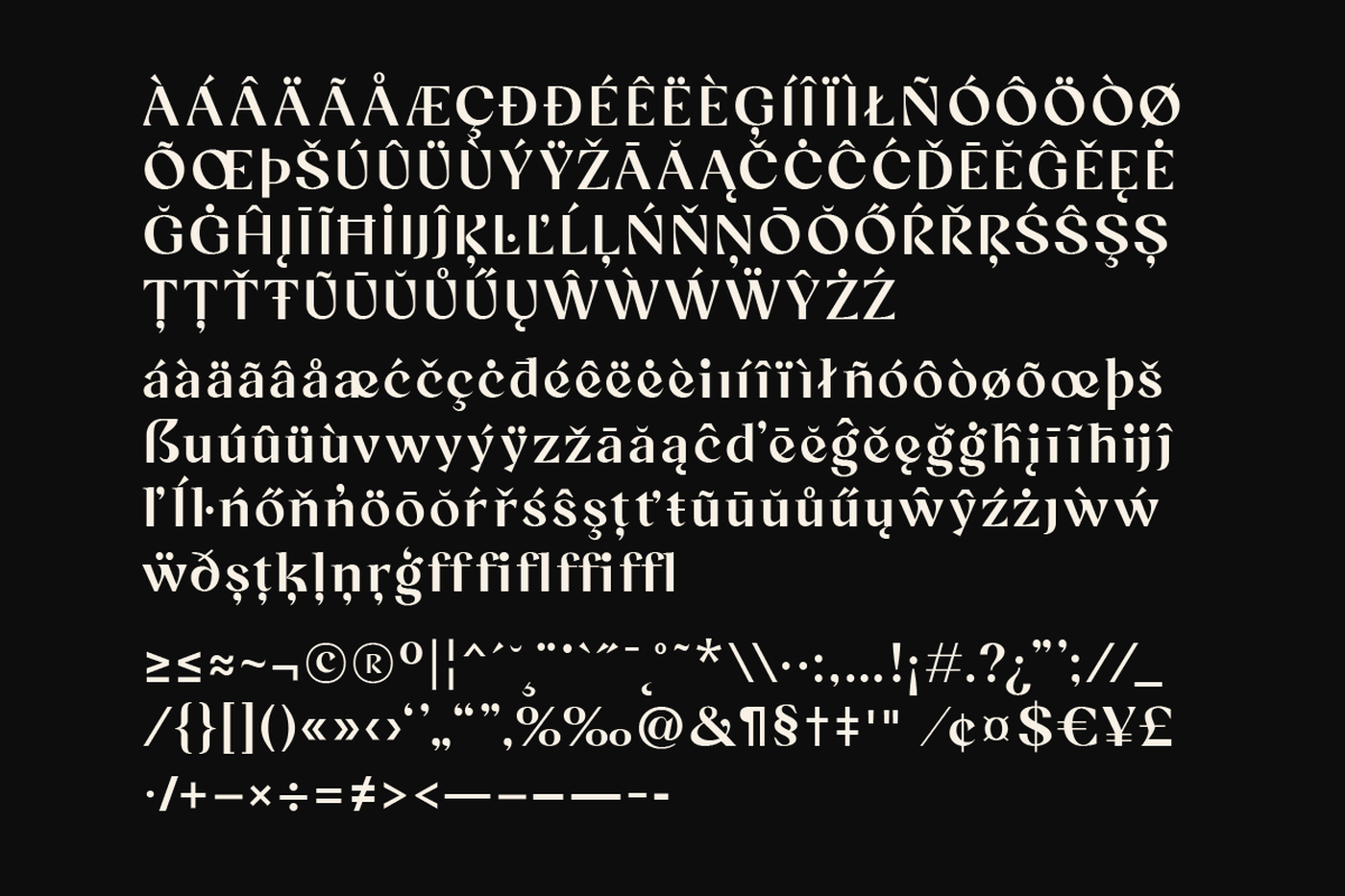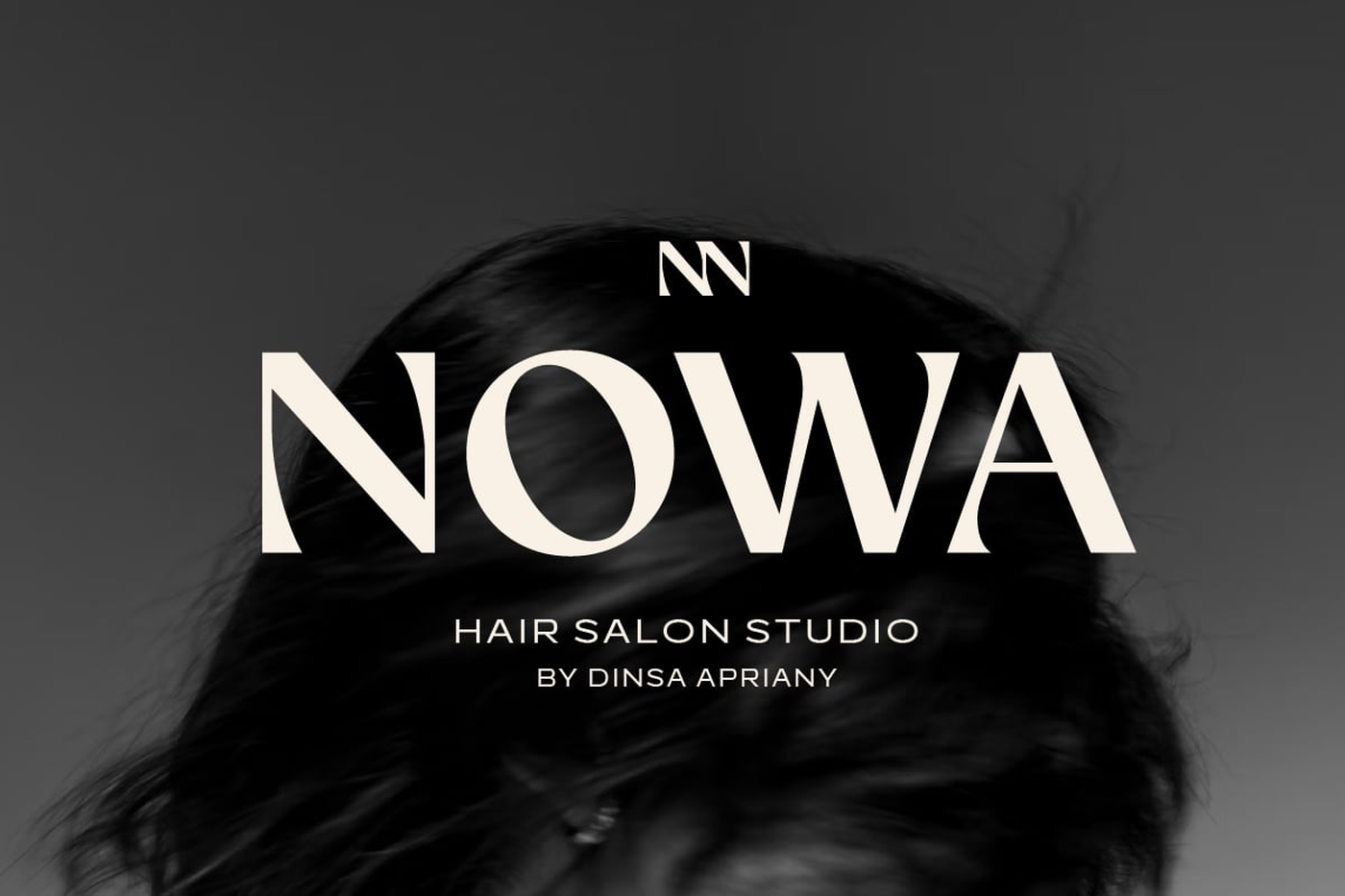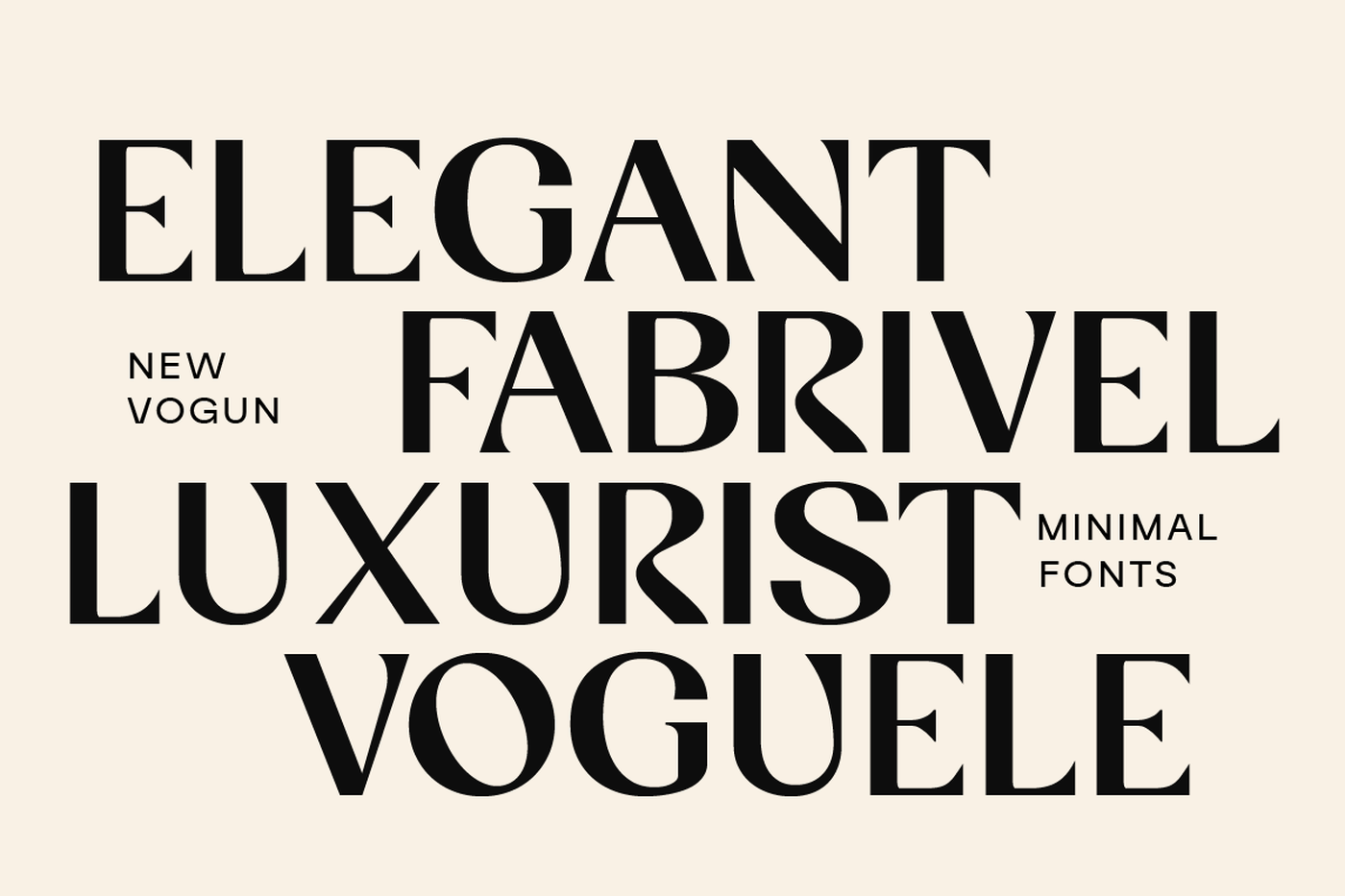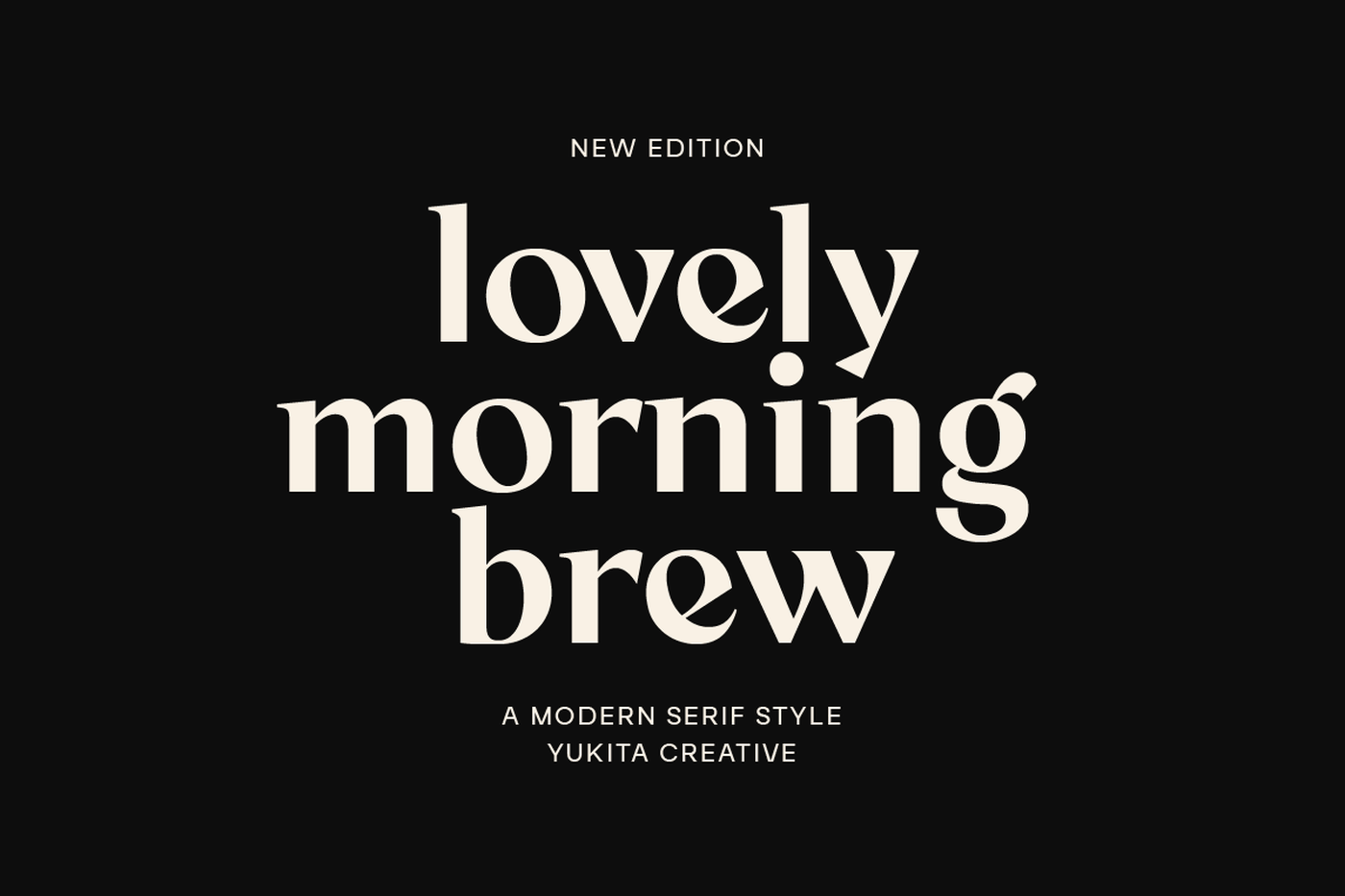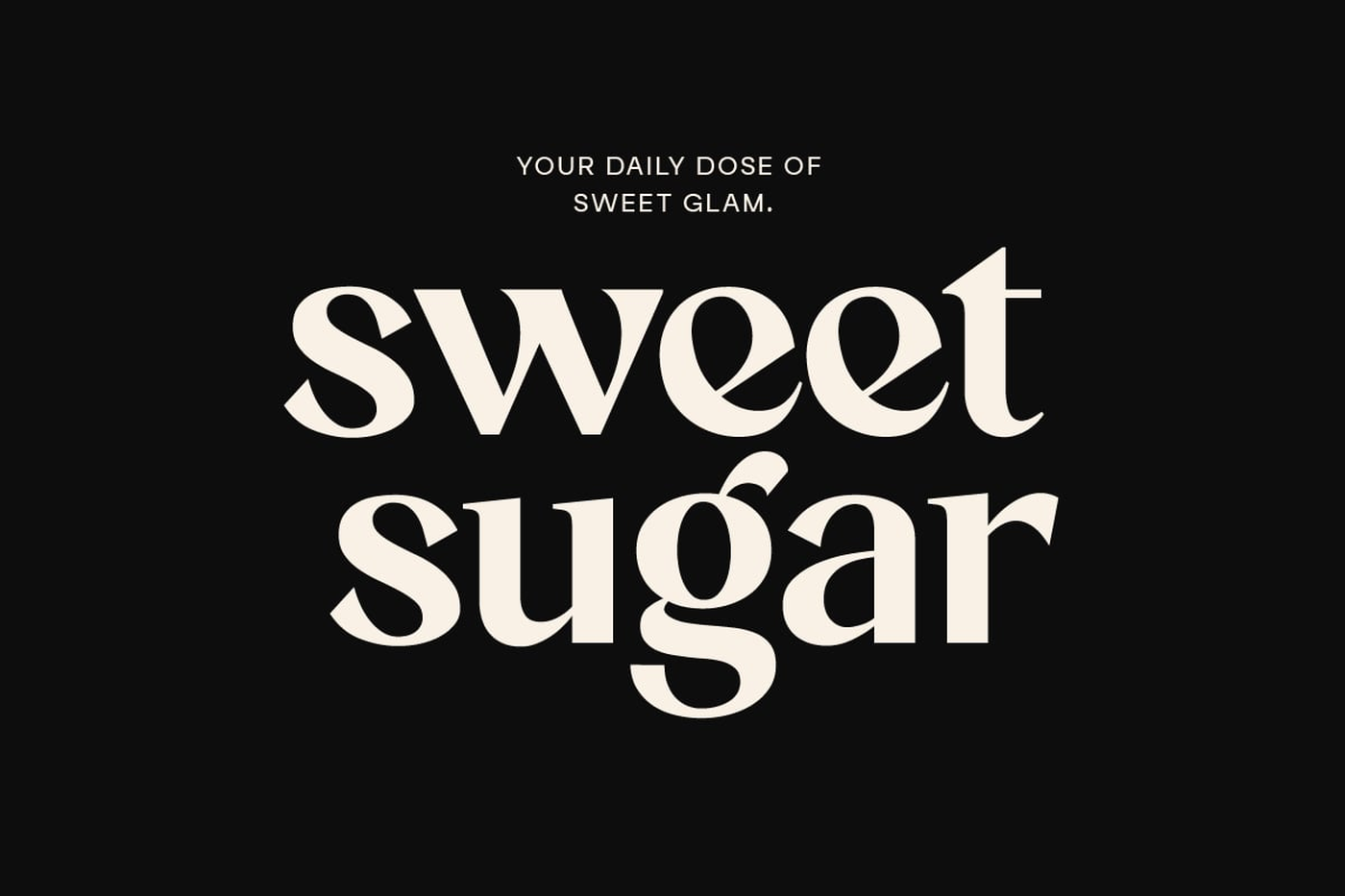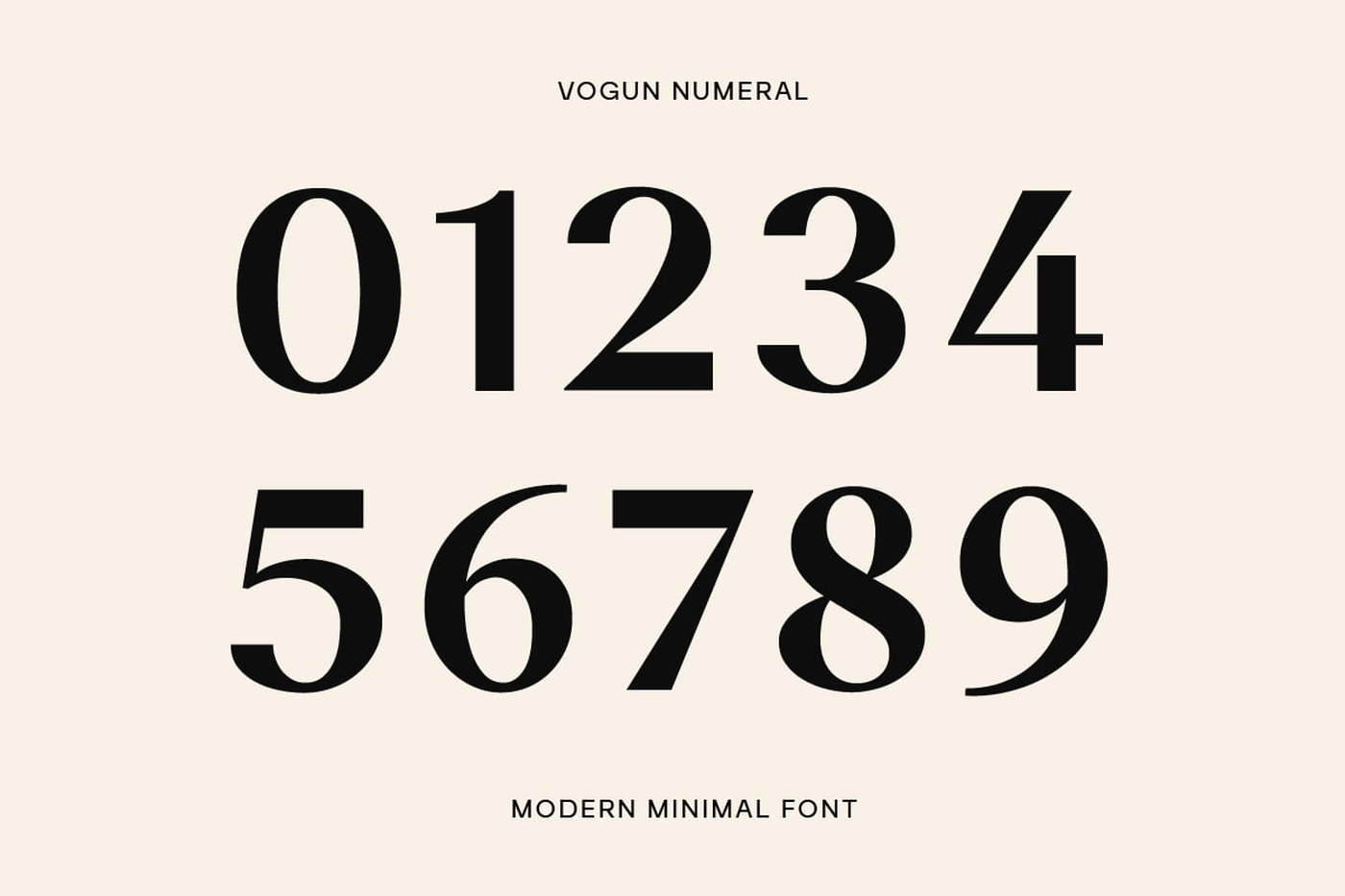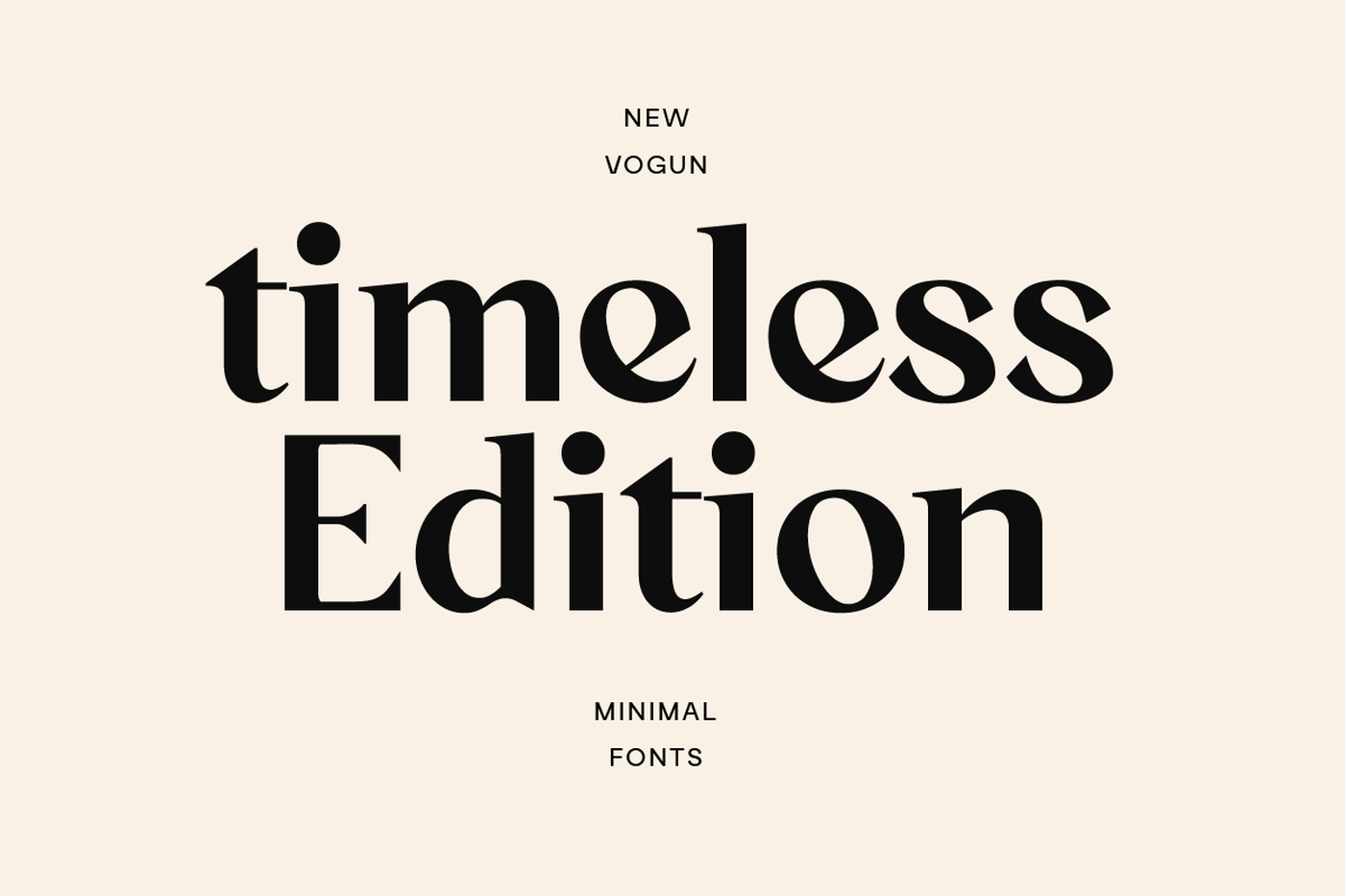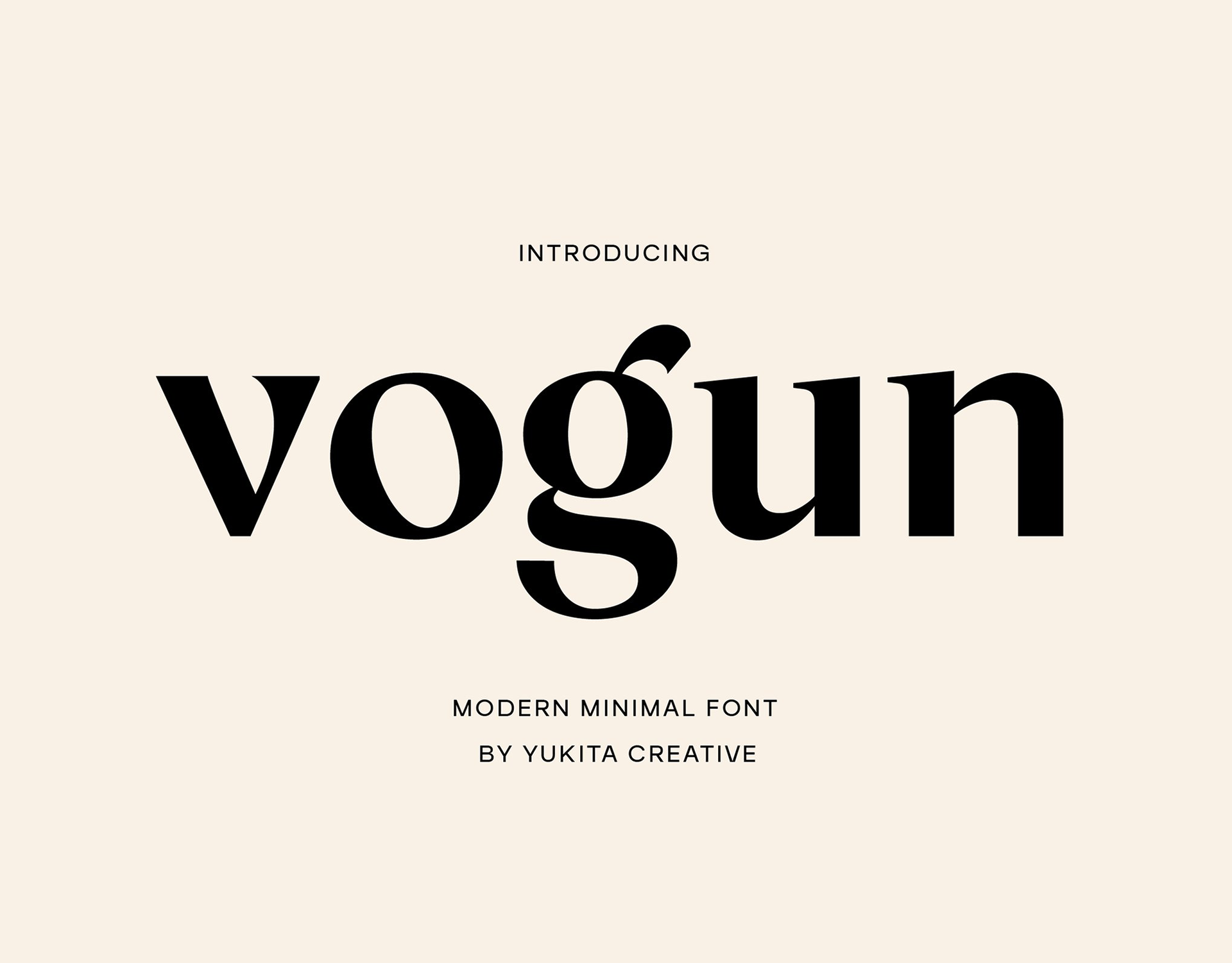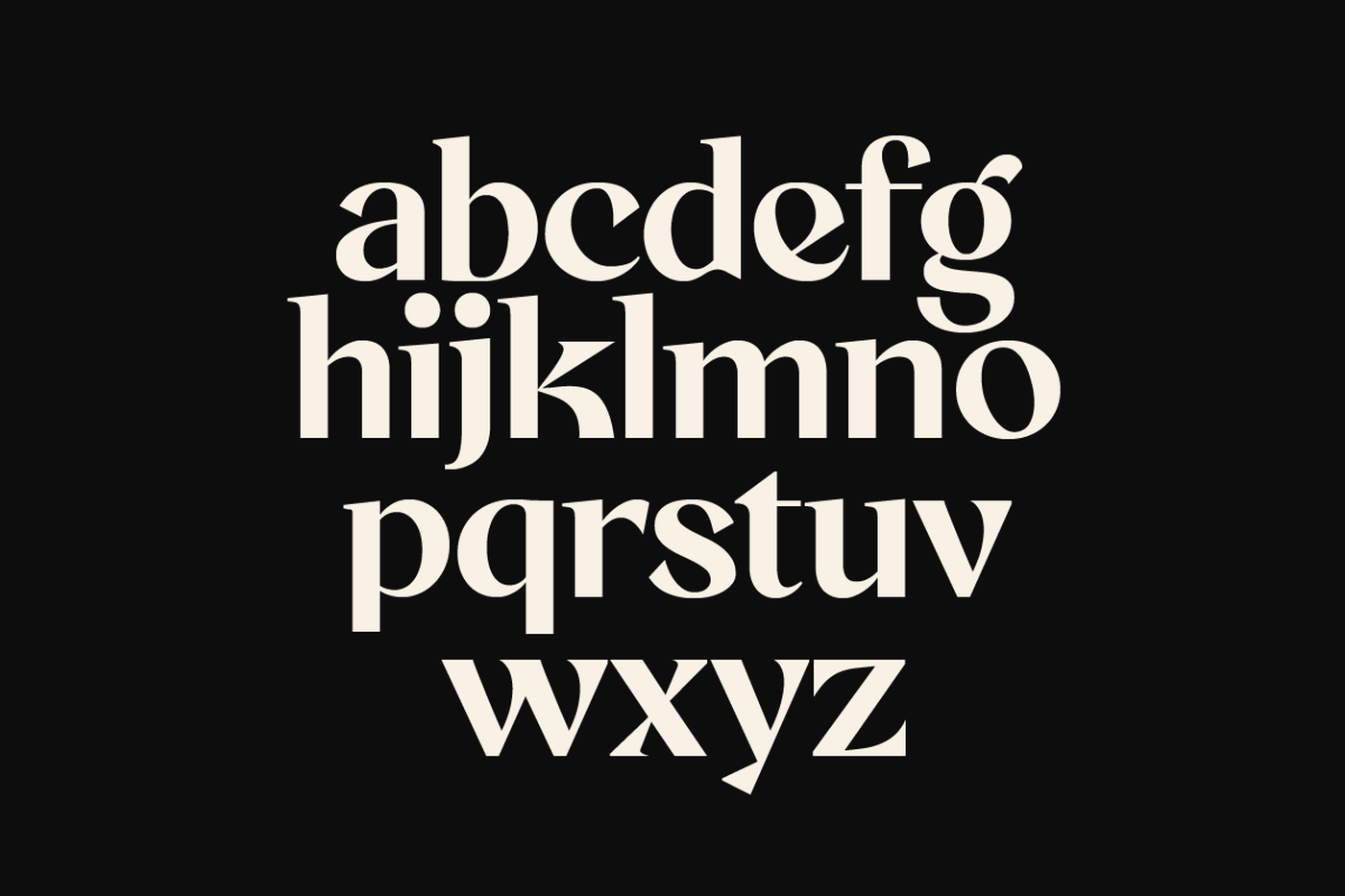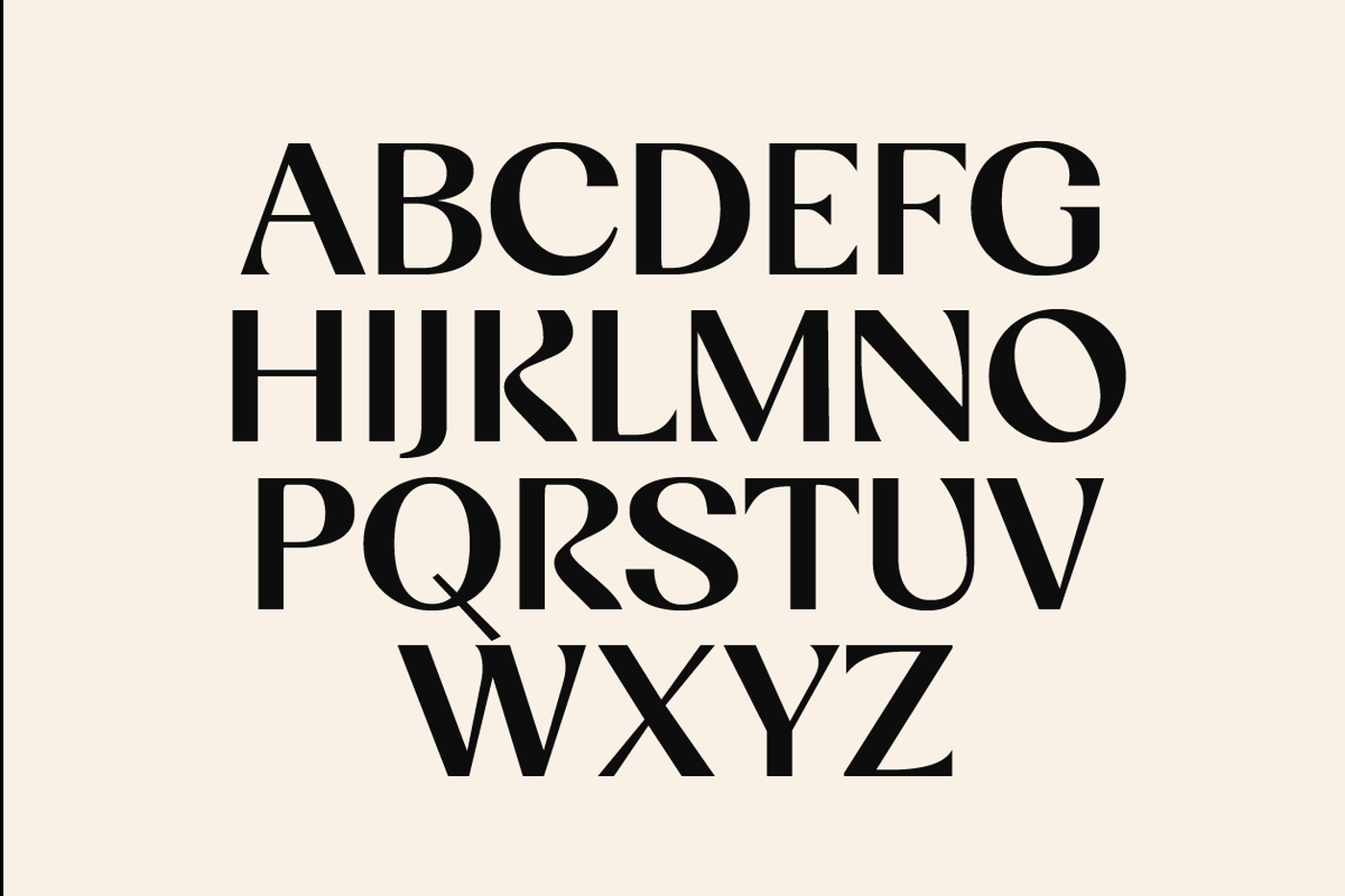
Vogun - Minimal Modern Font
Vogun is a sleek and minimalistic display font designed for modern aesthetics. Its clean lines and balanced proportions make it an excellent choice for bold, eye-catching designs that demand simplicity and sophistication.